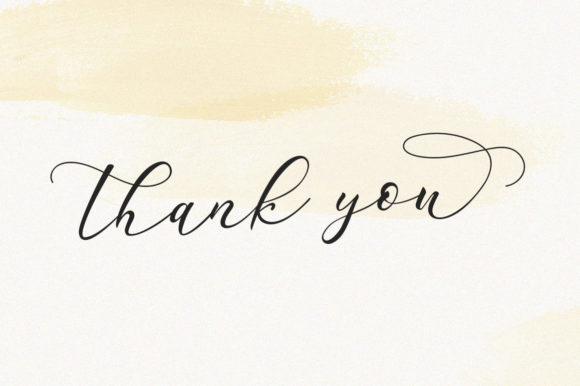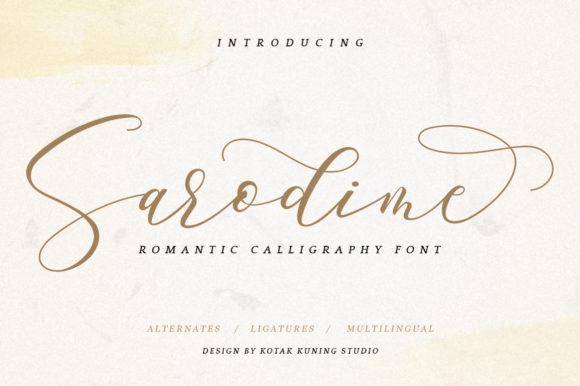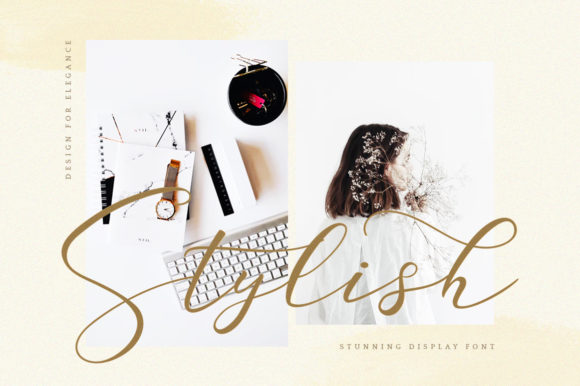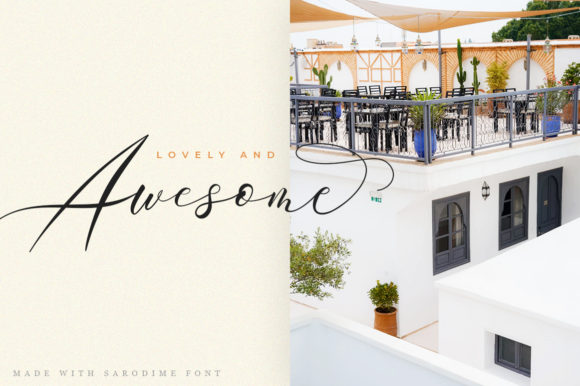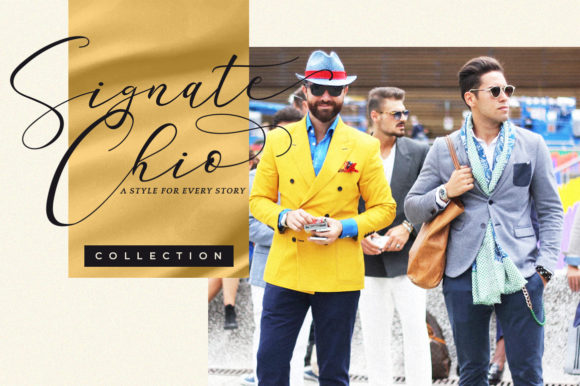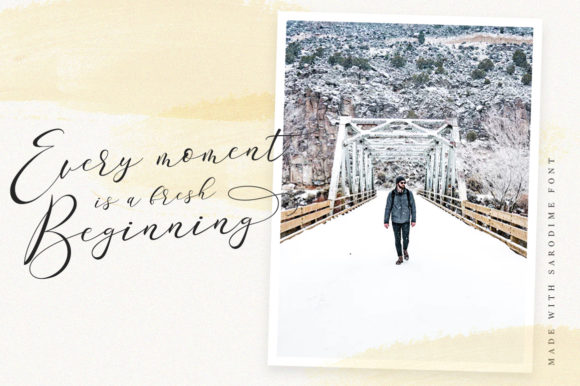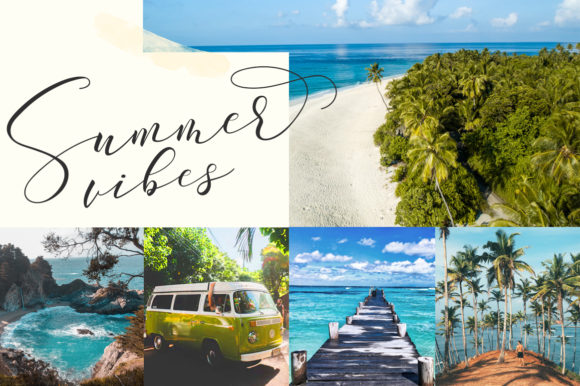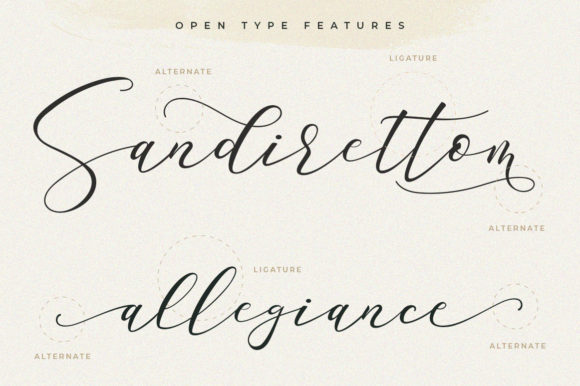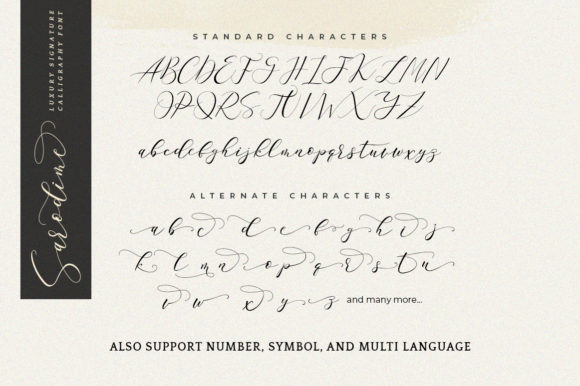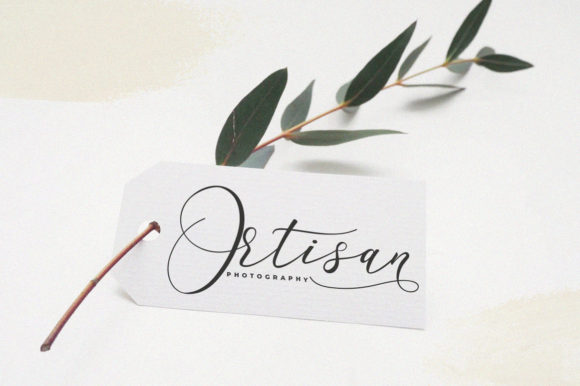
Sarodime Font
About Sarodime Font
The Sarodime is a romantic calligraphy font with a natural & stylish flow. It’s perfect for many different projects such as logos & branding, invitations, stationery, wedding designs, social media posts, advertisements, product packaging, product designs, labels, photography, watermarks, special events and much more!